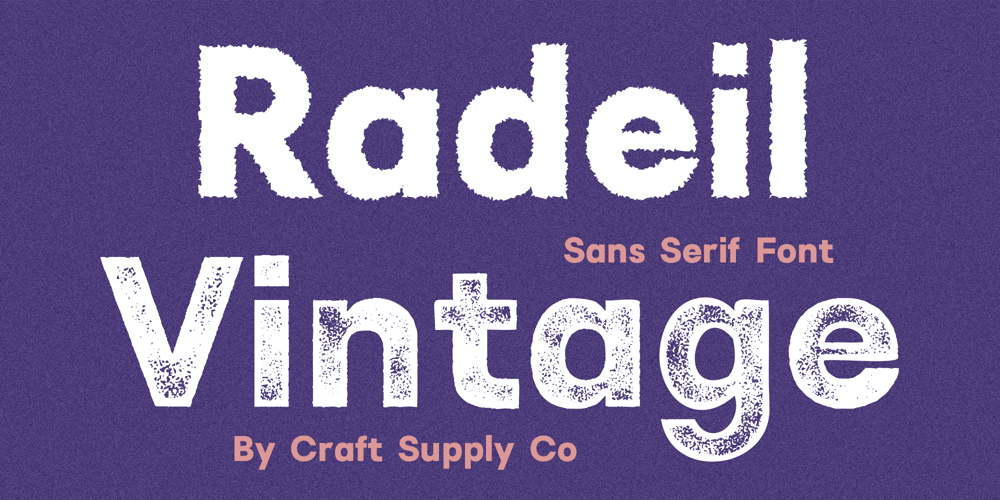
Radeil Font Family was designed by Trio Nazzar Saputra, Wahyu Hadi Yuana and published by Craft Supply Co. Radeil contains 4 styles and family package options. Radeil Vintage Font – A Unique Sans SerifIntroduction to Radeil Vintage is a distinctive sans serif font with a timeless appeal. It blends vintage charm with modern simplicity. This font stands out with its unique stamp-style and rough texture.Design FeaturesRadeil Vintage showcases a rough, textured look, resembling a hand-stamped imprint. Its characters have a slightly eroded appearance, adding to the vintage feel. The font maintains clean lines, typical of sans serif fonts, ensuring readability.Versatility and UsageIdeal for various design projects, Radeil Vintage is versatile. It’s perfect for logos, posters, and branding that require a retro touch. Its distinct style enhances both digital and print media.